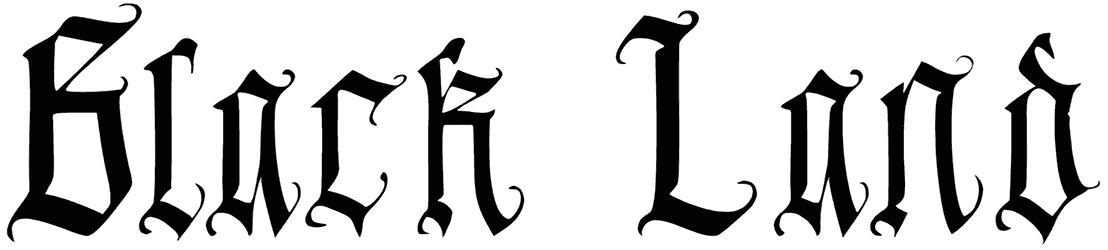
Black Land Font
We are introducing Black Land which is a powerful medieval-style gothic font! If you are interested in creating your unique typography with a rebellious look, then you will be happy to know the characters provided are sharp, pointy, and out of shape.
Even tho it is slightly difficult to read, it’s very eye-catching and resourceful. You can involve it in tattoos as it’s playful, but other popular places to add it are books, posters, logos, banners, and wherever you desire!